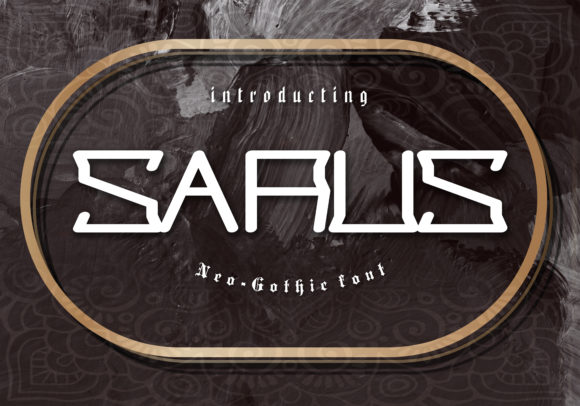
Welcome to the world of Sarus Font, a captivating display font that brings grace and elegance to your digital creations. With its striking aesthetics and versatility, Sarus Font is the perfect choice for designers seeking to make a lasting impact.
Unleash Your Creativity:
Dive into the realm of boundless creativity with Sarus Font, a display font that fuels your imagination. Sarus Font empowers you to craft striking visual statements that resonate with your audience. Be it branding projects, captivating posters, or eye-catching web and app designs, Sarus Font elevates your designs to new heights.
Modern and Alluring:
Experience the fusion of modern sophistication and timeless elegance with Sarus Font. Its all caps design exudes a strong and confident presence, while its meticulously crafted letterforms create a visual harmony that enhances the overall appeal of your designs.
Effortless Visual Impact:
Make an indelible impression with Sarus Font, a font that commands attention without overpowering your content. Its distinctive character adds a touch of intrigue and exclusivity, ensuring that your designs stand out from the clutter and leave a lasting impact on your audience.
Embrace Versatility:
The Sarus Font family is a versatile chameleon that adapts seamlessly to a myriad of applications. Its inherent versatility makes it an ideal choice for branding, posters, web design, and countless other digital endeavors. Whether you're creating a bold logo, an immersive website, or a captivating poster, Sarus Font delivers exceptional results every time.
A Font for Every Occasion:
With Sarus Font, you unlock a font that gracefully complements a diverse range of design aesthetics. Its modern charm blends effortlessly with contemporary styles, while its timeless elegance adds a touch of sophistication to classic designs. Sarus Font is the perfect companion for projects that demand a touch of distinction and originality.
Elevate Your Design Game:
Embark on a journey of design excellence with Sarus Font. Its meticulously crafted letterforms, purposeful spacing, and harmonious proportions create a visual symphony that elevates the impact of your designs. Sarus Font transforms ordinary words into captivating statements, enabling you to communicate with clarity and impact.